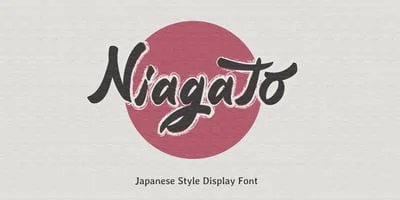
Niagato Font
Niagato Font is ideal for water brands, tourism companies, natural beauty products, spa communications, hydroelectric companies, environmental organizations, and flowing design applications. This fluid typeface brings cascading elegance and natural power to water-inspired design projects.
Niagato Font is exciting because it captures the magnificent power of cascading waterfalls with its flowing letterforms that convey natural force and liquid elegance while maintaining exceptional readability and aquatic appeal across water-themed applications.
The Niagato Font family includes regular and flowing variations with water-inspired character elements and cascading styling details. This liquid collection provides designers with fluid options for creating memorable and naturally powerful brand experiences.
Niagato Font provides access to a fluidly crafted typeface that embodies the majestic power and natural beauty of cascading waterfalls and flowing water systems. This dynamic font features flowing letterforms with aquatic details that create immediate associations with natural power, liquid elegance, and environmental beauty. The typeface showcases fluid proportions and water aesthetics that enhance natural communications while maintaining professional functionality and broad accessibility. Its aquatic character makes it particularly suitable for environmental brands and water companies that require typography capable of conveying natural power, liquid beauty, and environmental authenticity. Niagato Font delivers exceptional fluid impact for applications where static fonts feel inappropriate for water communications and natural flow branding. The font's flowing appeal and aquatic aesthetic make it an essential tool for designers working on projects that require typographic expression of natural power, water beauty, and environmental elegance that resonates with audiences seeking authentic natural experiences and flowing visual communication.